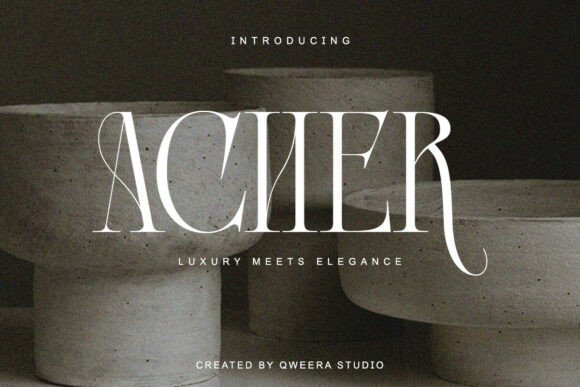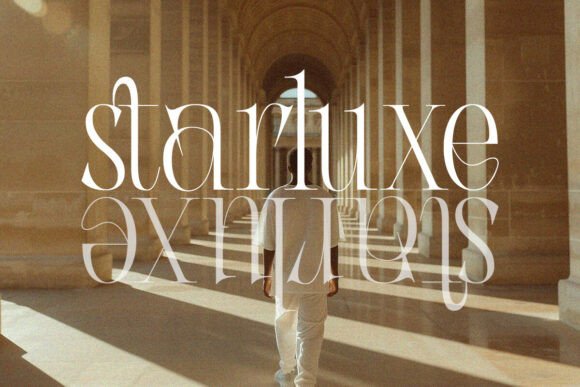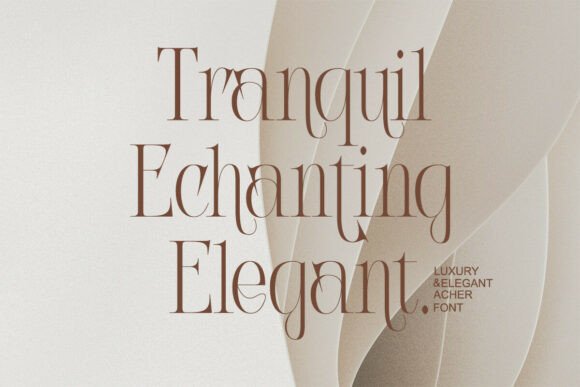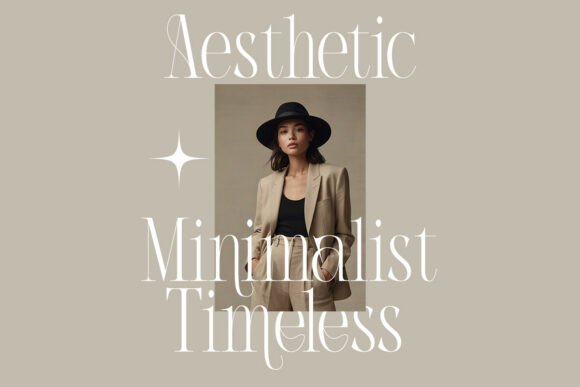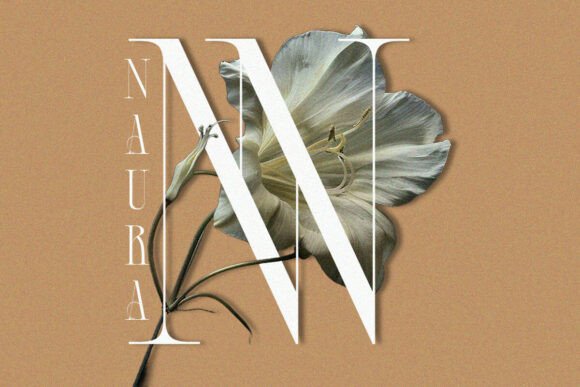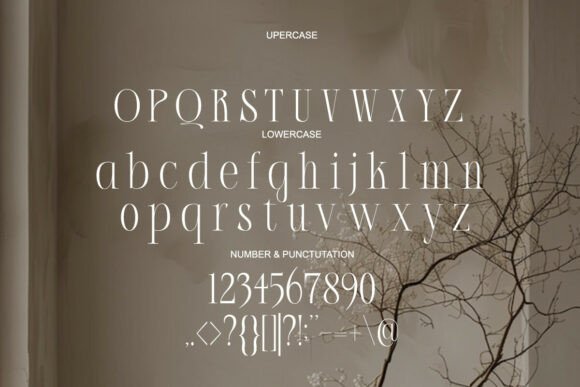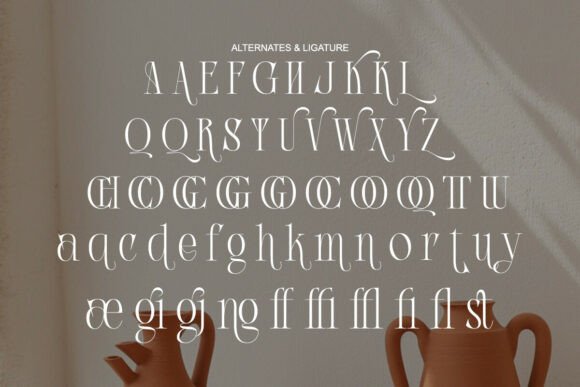
The Birth of a Masterpiece: Unveiling the Acher Font
As designers, we’ve all experienced that magical moment when a project comes together, and every element falls into place. The typeface is chosen, the colors are perfect, and the message resonates with the audience. It’s a feeling that’s hard to replicate, but with the right tools, it’s achievable. That’s where the Acher Font comes in – a refined serif typeface designed to elevate your work to new heights.
With its classic elegance and modern sensibility, the Acher Font is perfect for branding, editorial layouts, packaging, posters, and high-end logo design. Its beauty lies in its balance of contrast and carefully crafted details, making it a valuable asset for designers who value clarity and structure.
- Unique Characteristics: Acher Font features a unique blend of modern and vintage elements, with a distinctive aesthetic that sets it apart from other fonts.
- Character Set: The font includes a comprehensive character set, including Latin, Cyrillic, and Greek alphabets, as well as punctuation and symbols.
Acher Font Review
Acher Font is an elegant and refined typeface that can elevate your design to a whole new level. ✨ It features clean lines, smooth curves, and a sophisticated feel that’s perfect for luxury brands, high-end magazines, or any design project that requires a touch of class.
- ✨ Unique aesthetic that sets it apart from more common fonts
- ✨ Highly legible, even at smaller font sizes
- ✨ Wide range of weights and styles available, making it versatile for various design applications
- ✨ Works well with both serif and sans-serif fonts, giving designers plenty of options for pairing
- ⚠️ Limited character set, which may be a concern for designers working with non-Latin scripts
- ⚠️ May not be suitable for casual or playful designs, as it’s quite formal and refined
Overall, Acher Font is a solid choice for designers looking to add a touch of sophistication to their projects. While it may have some limitations, its unique aesthetic and wide range of styles make it a valuable addition to any design arsenal.
Use the Acher font for:
- Modern and sleek headings and titles.
- Body text for blogs, articles, and websites.
- Text overlays and captions in graphics and designs.
For optimal results, use the Acher font in combination with a clear and concise design, and don’t be afraid to experiment with different font sizes, colors, and styles.